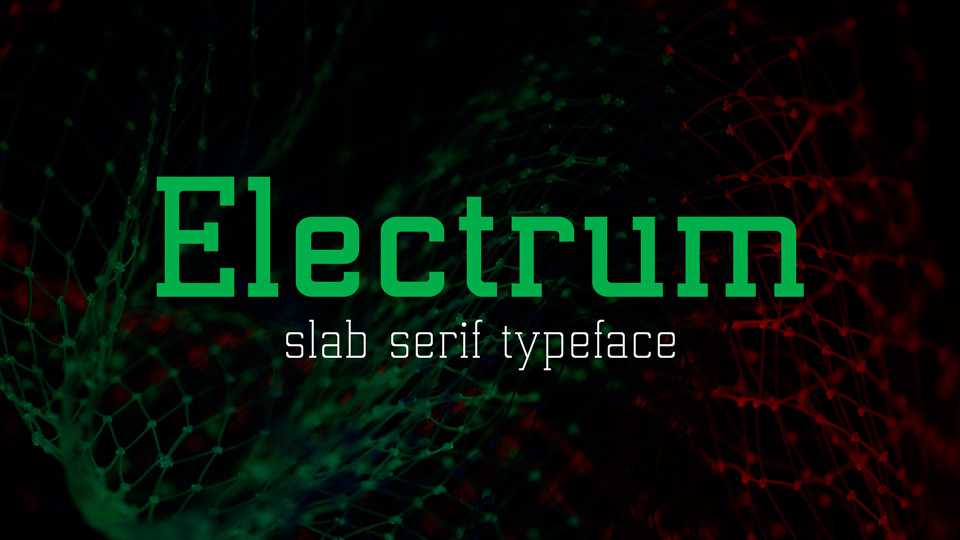
Download Electrum typeface, a square slab serif font family in 4 weights with matched Obliques. Electrum that can be used for text and titling ant it’s suitable for modern presentations.
Designer: Arkandis Digital Foundry